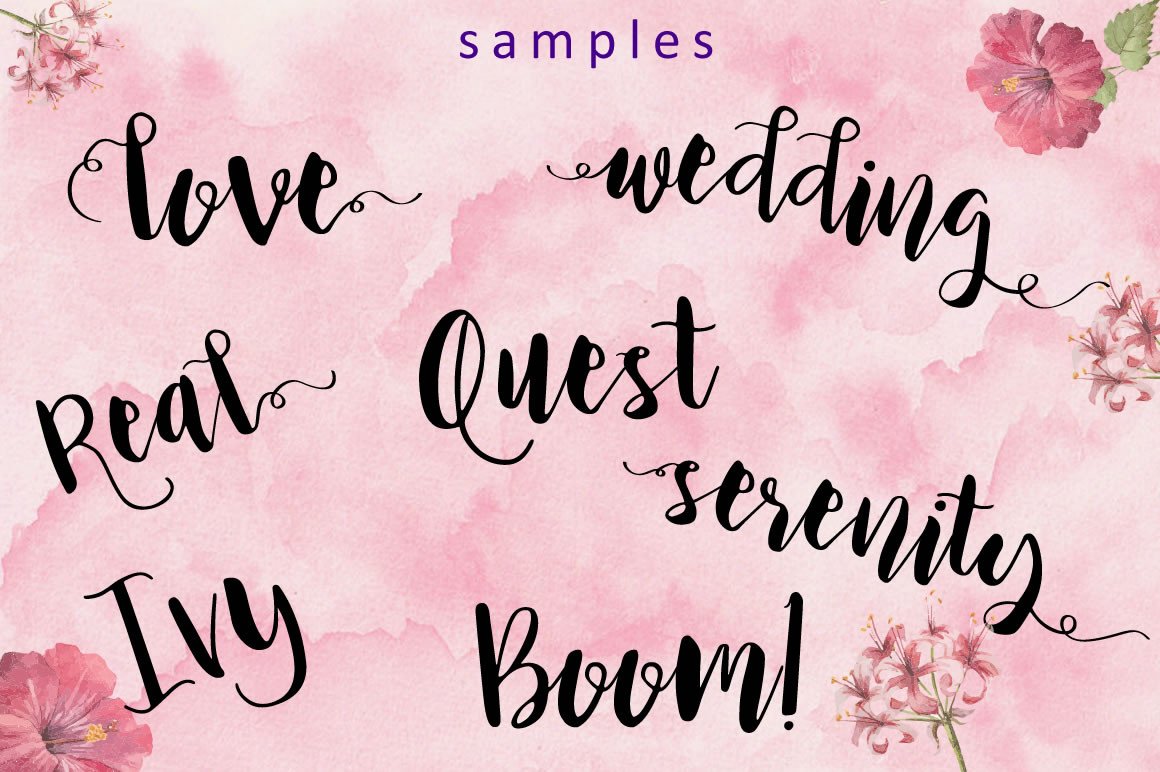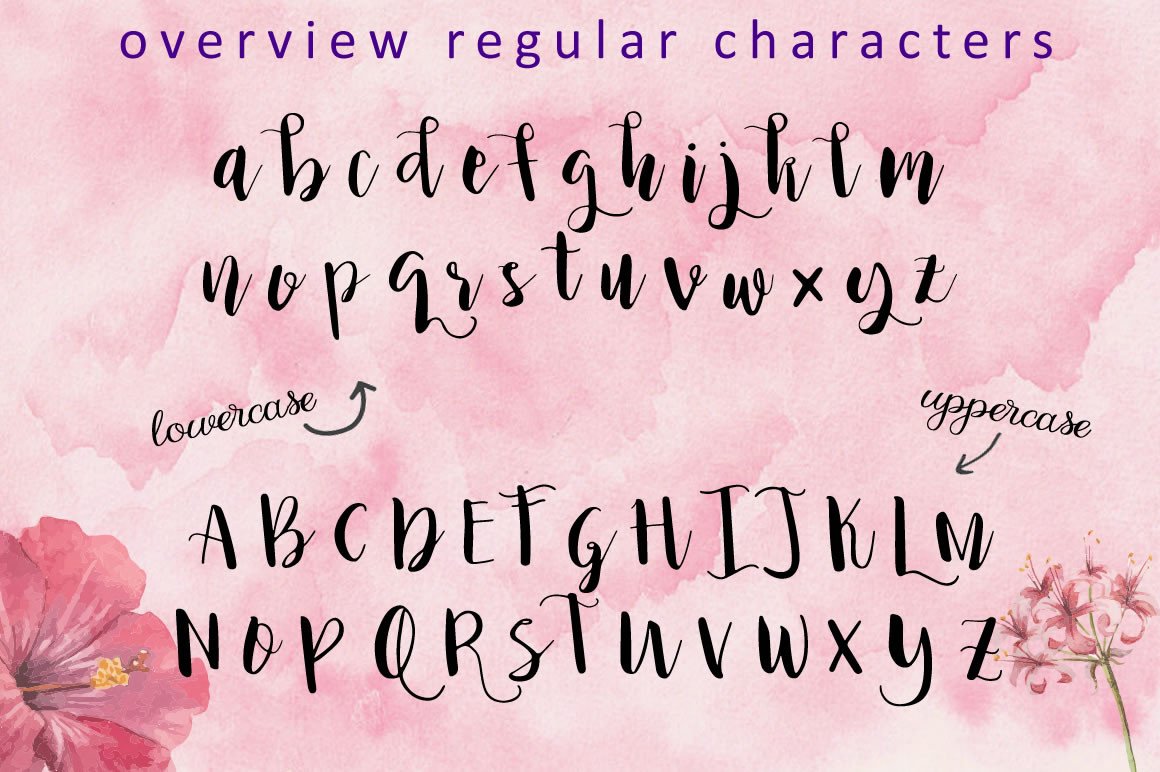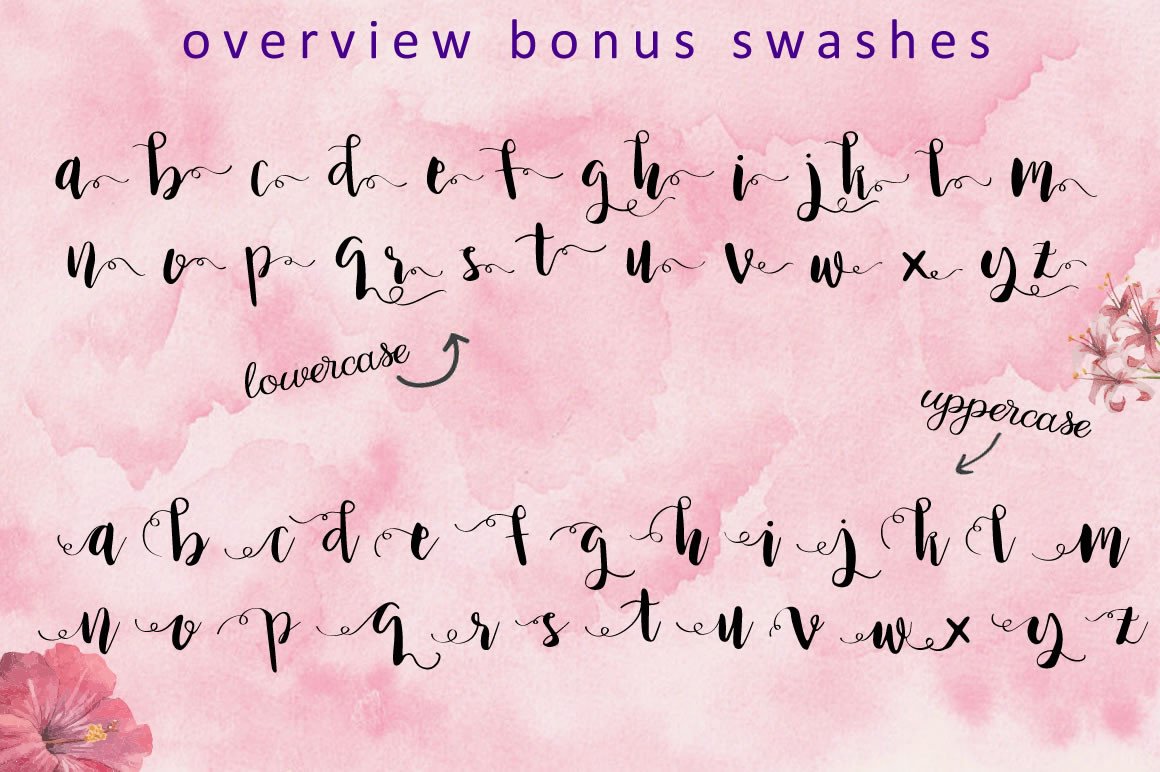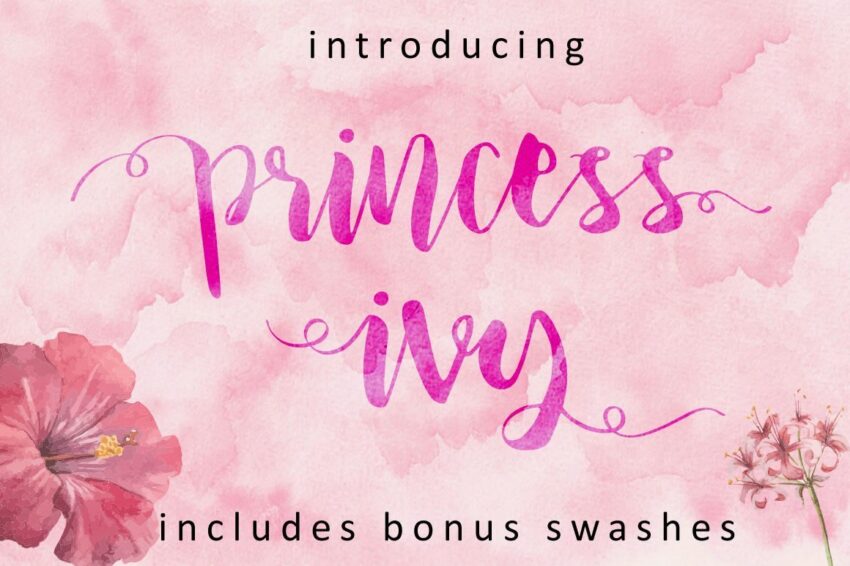
Introduction to Princess Ivy Font
Princess Ivy is a beautiful and elegant font.
Every letter of Princess Ivy is painted by hand with a small brush, digitally scanned and optimized until perfection Princess Ivy is a strong and independent font that has many purposes.
Princess Ivy Font offers exceptional quality and versatility, making it a valuable addition to your design toolkit. Whether you’re creating for personal projects or commercial use, Princess Ivy Font delivers professional results.